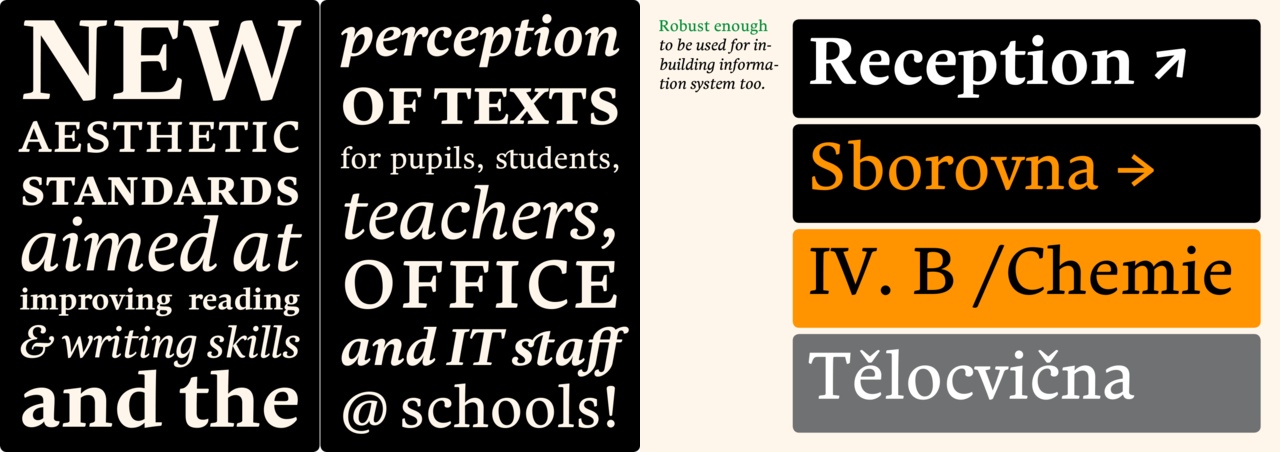
Comenia Serif Pro Font
Comenia Serif Pro Font is perfect for professional academic publications, scholarly journal layouts, educational institution materials, legal document formatting, comprehensive book publishing, research presentation slides, university branding systems, professional report design, intellectual property documentation, and authoritative reference materials.
What makes Comenia Serif Pro Font so exciting is its exceptional combination of scholarly authority and contemporary functionality that delivers optimal readability and professional credibility across extensive text applications and complex academic documentation. This professionally engineered typeface features precisely balanced letterforms with traditional serif elegance and optimized character spacing that immediately convey intellectual rigor, academic excellence, and the trustworthy foundation of scholarly communication. The font's systematic construction and authoritative aesthetic create an instant sense of educational credibility and professional competence, making it ideal for projects that need to communicate academic authority, scholarly precision, and the enduring value of intellectual tradition to audiences seeking reliable knowledge and meaningful educational experiences.
The Comenia Serif Pro Font family typically includes comprehensive professional weights and academic styles, often featuring light through bold variations along with corresponding italic versions and small caps. Professional serif font families frequently offer extensive character sets including advanced OpenType features, mathematical symbols, and international language support that ensure optimal typography across complex scholarly communication requirements and diverse academic applications.
Comenia Serif Pro Font Free Download provides designers with an invaluable tool for creating academically authoritative and professionally compelling designs. Whether you're developing materials for educational institutions, crafting layouts for scholarly publications, or designing communications for professional services that require immediate intellectual credibility and sustained reading comfort, this font delivers the scholarly presence that academic professionals and knowledge-focused audiences expect and trust.
The professional nature of Comenia Serif Pro Font makes it particularly effective for targeting demographics that value intellectual rigor and academic excellence in their educational and professional pursuits. Academic publishers and educational marketers will find this font especially valuable for materials that must establish immediate scholarly credibility and support extended reading experiences across diverse academic disciplines and professional contexts.
What distinguishes Comenia Serif Pro Font is its remarkable ability to convey traditional academic authority while maintaining contemporary functionality for modern publishing requirements. This balanced characteristic makes it suitable for both classical scholarly applications and progressive educational contexts where projecting intellectual credibility and maintaining optimal readability must coexist harmoniously.
Professional designers recognize that Comenia Serif Pro Font brings invaluable academic credibility to projects across industries including higher education, professional publishing, legal services, and scholarly research. Its authoritative character and professional appeal make it essential for organizations whose mission centers on advancing knowledge, supporting education, and creating meaningful connections between complex information and audience understanding.
The systematically optimized design of Comenia Serif Pro Font ensures consistent scholarly messaging across all education-focused communication applications while honoring the fundamental importance of clarity and authority in academic and professional communication.